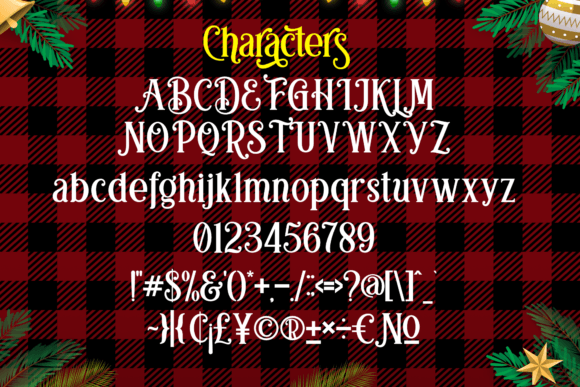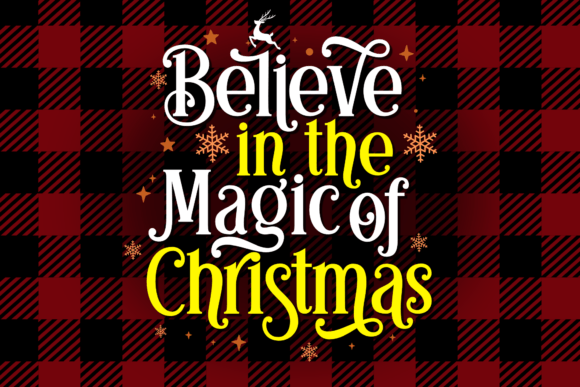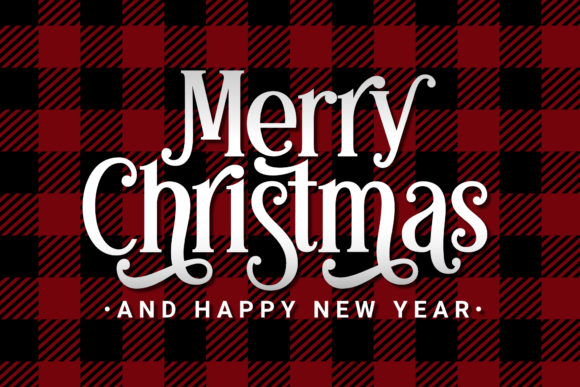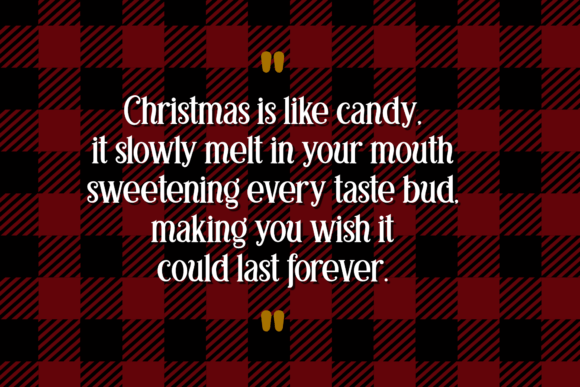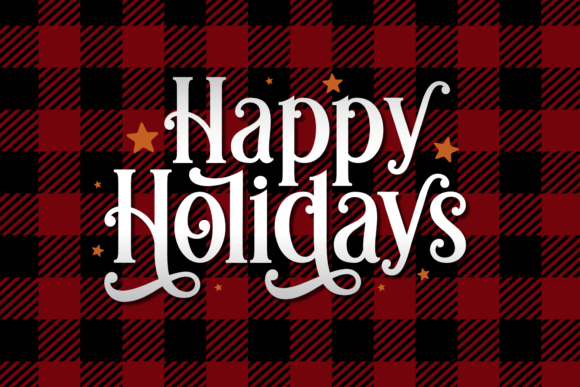
Unwrapping the Magic of the Season with Chasing Christmas Font
There’s something special about the first time you sit down to plan a holiday project – the twinkle in your eye, the excitement in your heart, and the anticipation of bringing joy to others. For designers, this moment is a chance to get creative and make the season even brighter. And what better way to do that than with a font that captures the essence of Christmas in all its festive glory?
Enter the Chasing Christmas Font, a playful and charming serif font that’s sure to add a touch of magic to your projects. With its PUA encoding, you’ll have access to a world of glyphs and swashes that will help you create truly unique and eye-catching designs. Whether you’re designing holiday cards, wrapping paper, or even a festive website, the Chasing Christmas Font is the perfect tool to help you get into the holiday spirit.
- Unique Characteristics: Features a festive, holiday-themed design with intricate details and ornaments, making it perfect for Christmas-related projects.
Review of “Chasing Christmas Font”
Overall, I was quite impressed with the Chasing Christmas Font. The designer has done a great job of capturing the essence of the holiday season in a unique and eye-catching way.
- ✨ The font’s most striking feature is its use of festive colors and patterns, which immediately evoke the feeling of Christmas. This makes it perfect for holiday-themed designs.
- ✨ The font is highly customizable, allowing users to adjust the size, color, and spacing to suit their needs.
- ✨ The font’s bold, playful design makes it ideal for headings and titles, adding a touch of whimsy to any design.
- ⚠️ The font may be too over-the-top for some designs, potentially overwhelming the viewer.
- ⚠️ The font’s bold design may not be suitable for large blocks of text, where readability becomes a concern.
Overall, I’d give the Chasing Christmas Font a solid 4 out of 5 stars. While it may not be the most versatile font, its unique design and customization options make it a great choice for holiday-themed designs. With some careful consideration of its limitations, I’m confident that designers will find it a valuable addition to their toolkit.
The “Chasing Christmas Font” is perfect for creating festive and holiday-themed designs, such as:
- Christmas card templates
- Holiday party invitations
- Winter-themed social media graphics
Remember to experiment with different font sizes, colors, and styles to get the most out of this unique font.